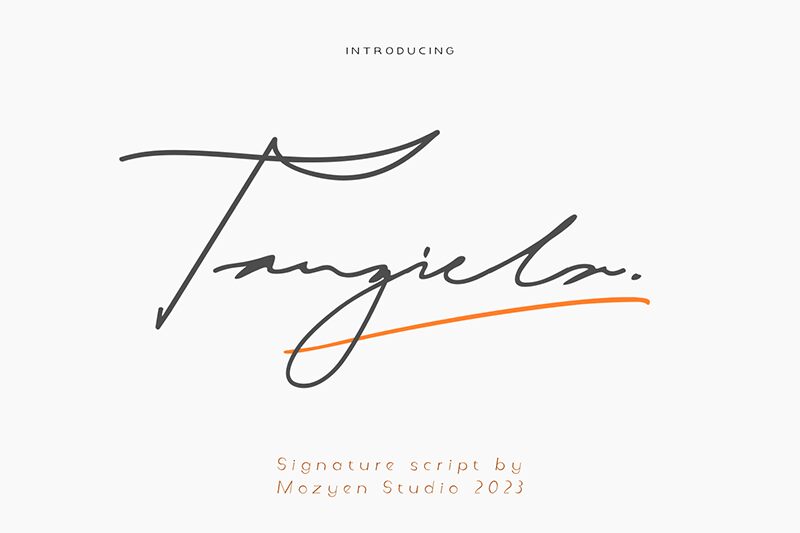
Tangiela
Tangiela font by Mozyen Studio captures the beauty and elegance of a light calligraphic style with this handwritten typeface. It features thin strokes combined along gentle flowing curves that create a sophisticated impression. The author implemented special attention to the simplicity seen in each letterform, while still retaining an artistic flair.
Designed by Muhamad Ali H., Designer from Mozyen Studio